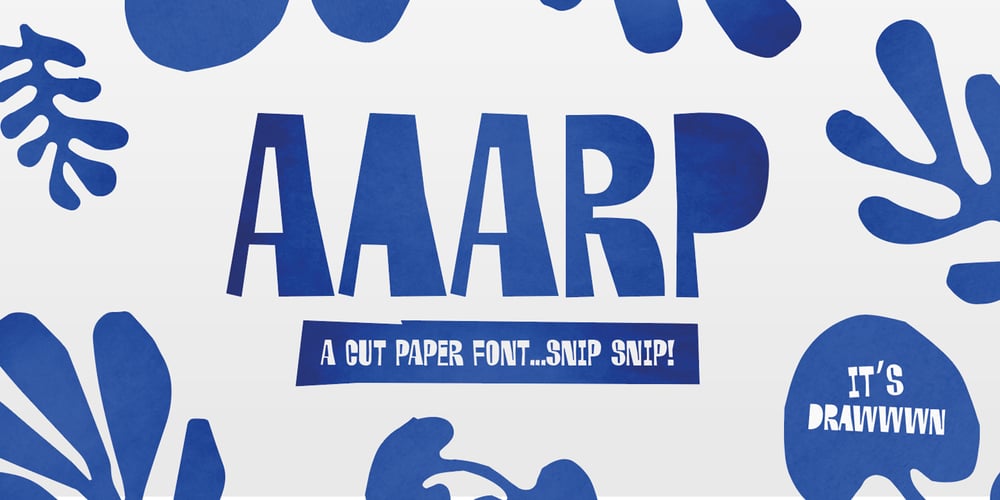
Aaarp
Aaarp font
Aaarp Font Family was designed by Ryan Thomas and published by Drawwwn. Aaarp contains 1 styles and family package options. Aaarp’s an arty farty cut paper display font – inspired by Jean Arp & Henri Matisse’s amazing work. Get creative with extra glyphs and shapes… Aaarp also has alternative letters so you can make all your designs look unique.